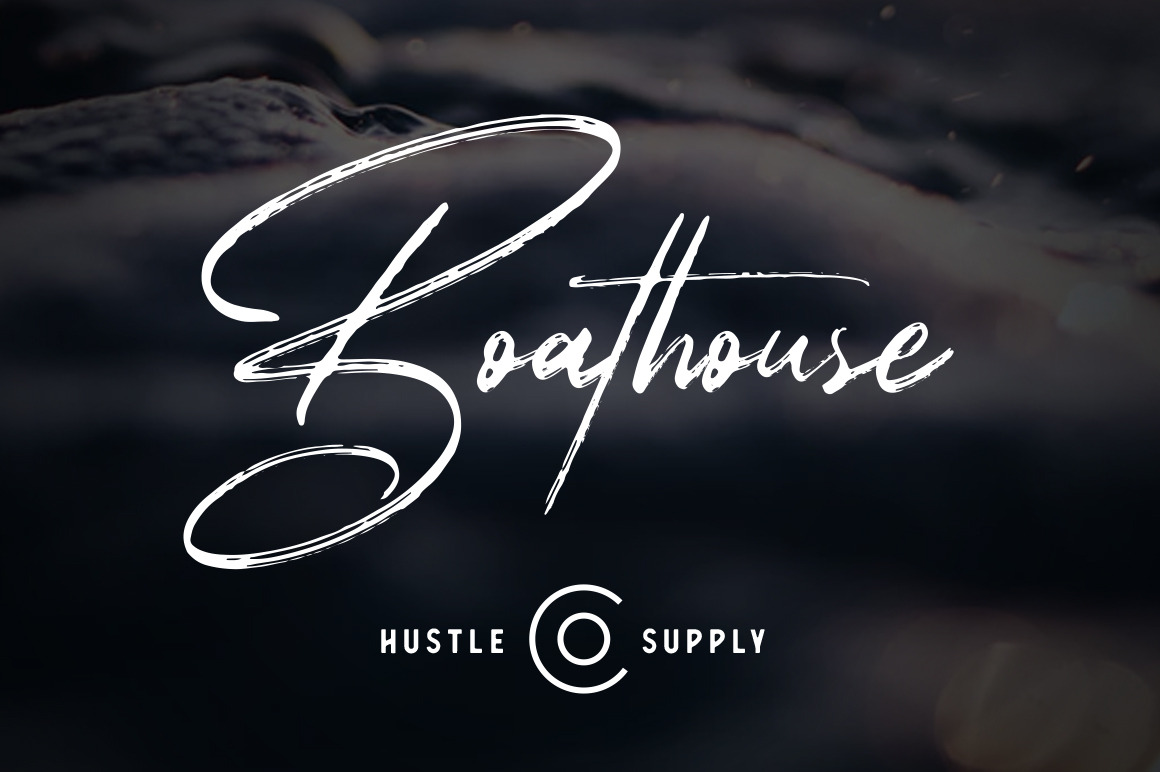
Boathouse - A Signature Brush Font
Boathouse *A Brush Signature Script Typeface"
Boathouse is a brush signature script typeface with a natural and stylish calligraphy style. It's a great typeface for Photographer Signatures or Logos that want to emulate a Signature. It also works great for titles, postcards, packaging, labels, apparel, prints, quotes etc.